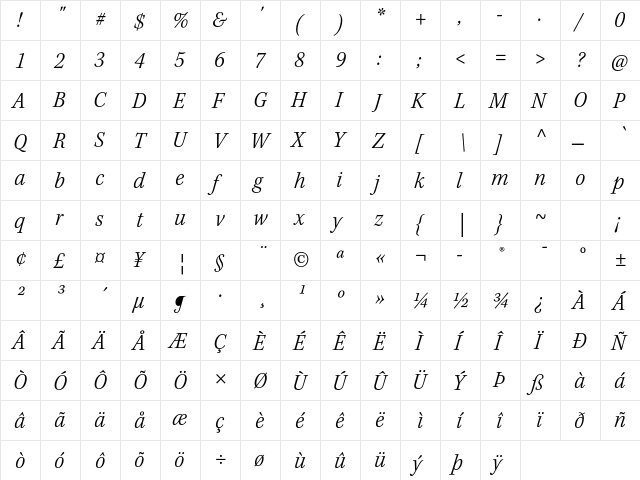
Kepler Std Light Semicondensed Italic Font Preview
| Designer | Robert Slimbach |
Design Context for Kepler Std Typeface
Kepler Std is a composed and adaptable typeface that performs quietly and consistently across a wide range of design contexts. The slanted form adds forward momentum and visual energy. The delicate stroke weight brings airiness and refinement to layouts. Its narrow stance lets it pack a punch even in space-constrained designs.
Pro Tip: Try Kepler Std for annotation and caption copy alongside an upright companion — the contrast in angle creates a dynamic but ordered typographic system.